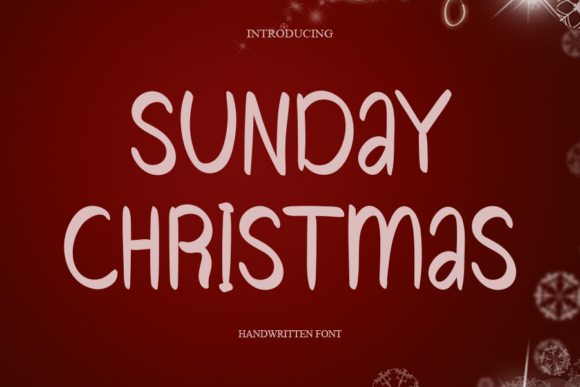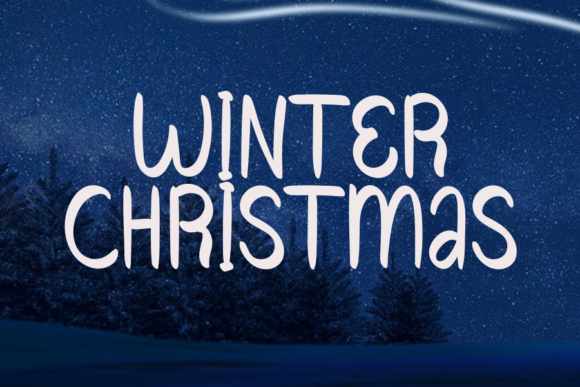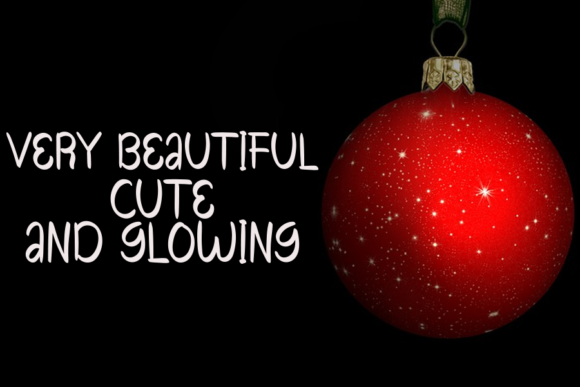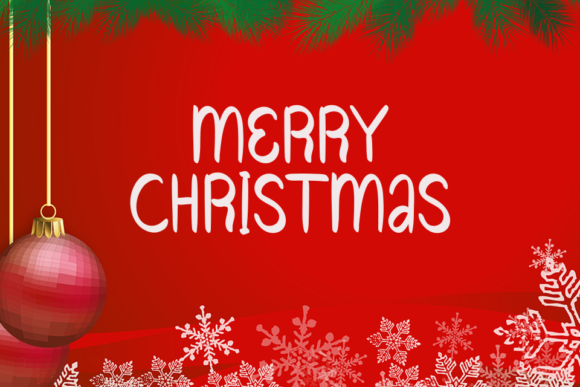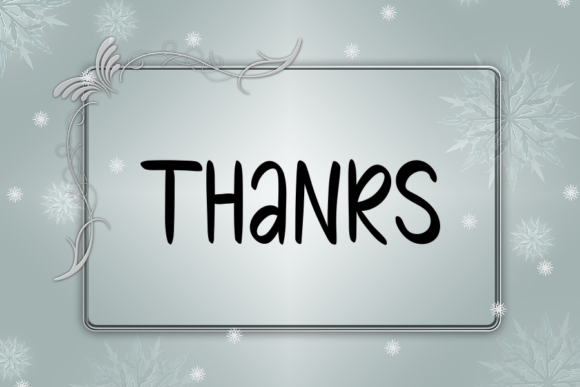
Sunday Christmas Font
About Sunday Christmas Font
Sunday Christmas is a neat and sleek handwritten font, perfect for more exquisite projects! Add it to invitations, apparel designs, expensive packaging, marketing materials, and others!